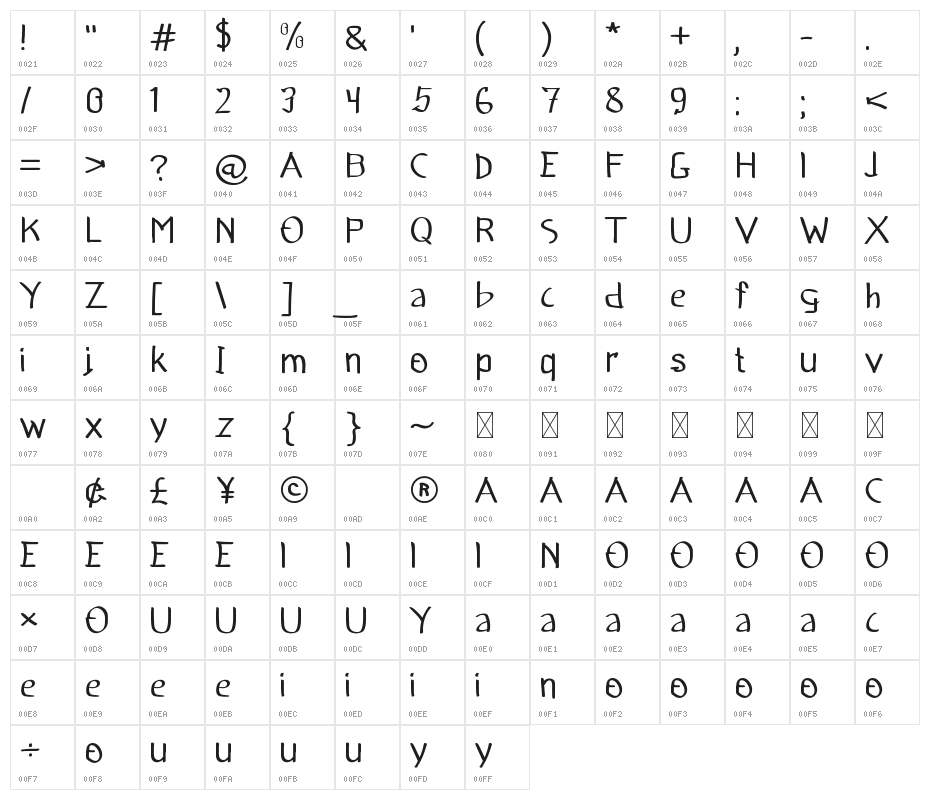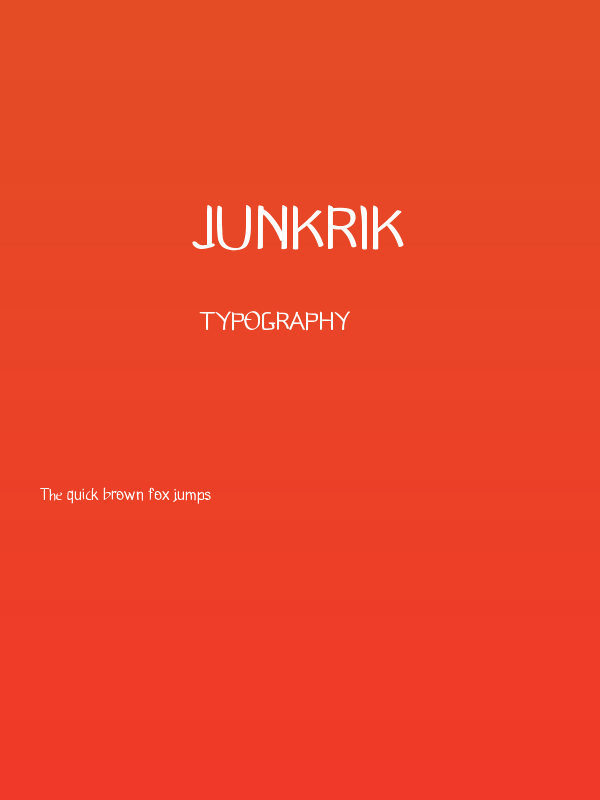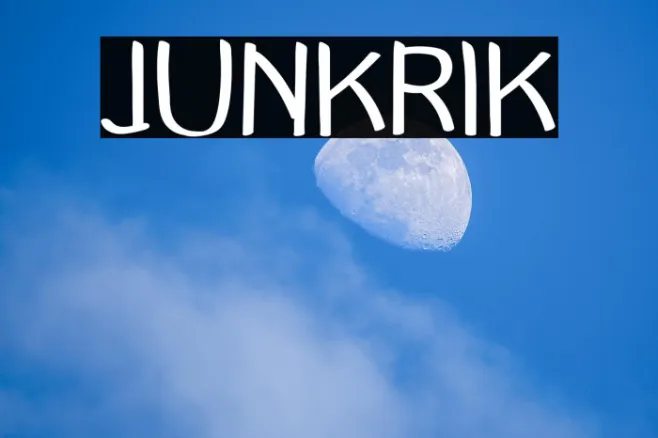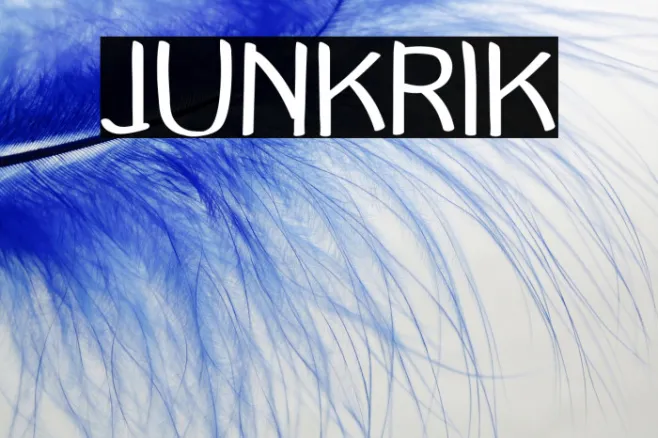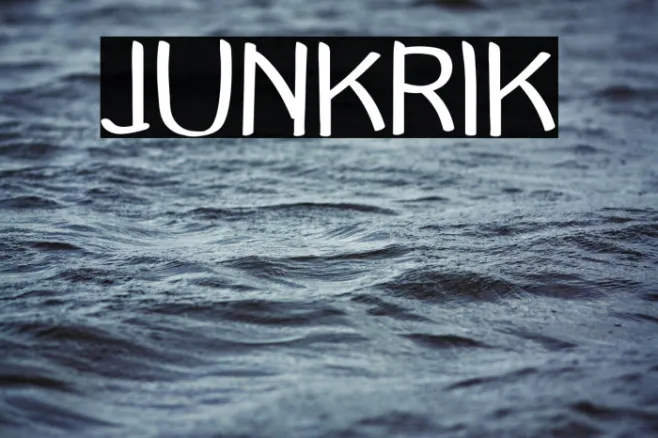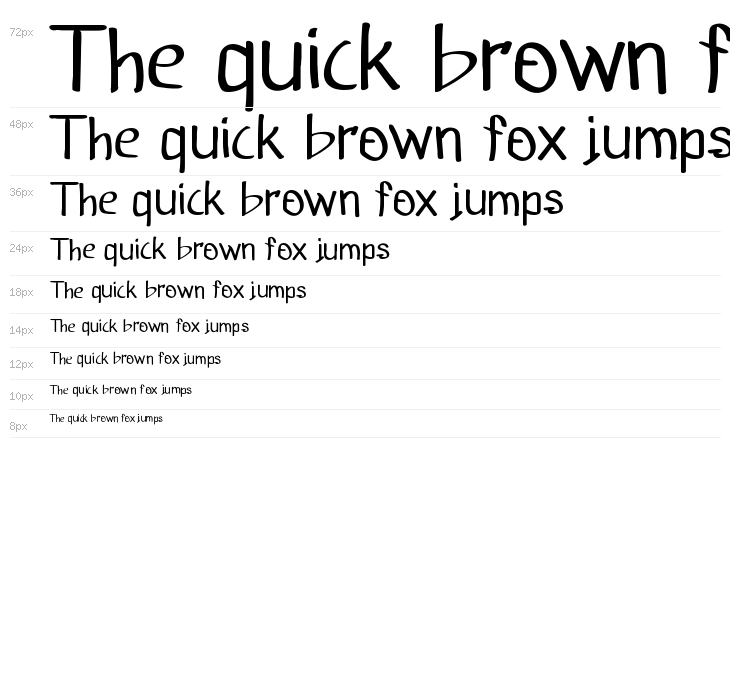
JUNKRIK Font
JUNKRIK Description
This font features a playful and quirky design, characterized by its irregular and slightly uneven strokes. The letters have a hand-drawn appearance, giving them a casual and informal vibe. The uppercase and lowercase letters maintain a consistent style, with rounded edges and a slight tilt that adds to the whimsical feel. The numerals and special characters follow the same design principles, ensuring a cohesive look across all glyphs. The font's unique style makes it stand out, making it suitable for creative and artistic projects.